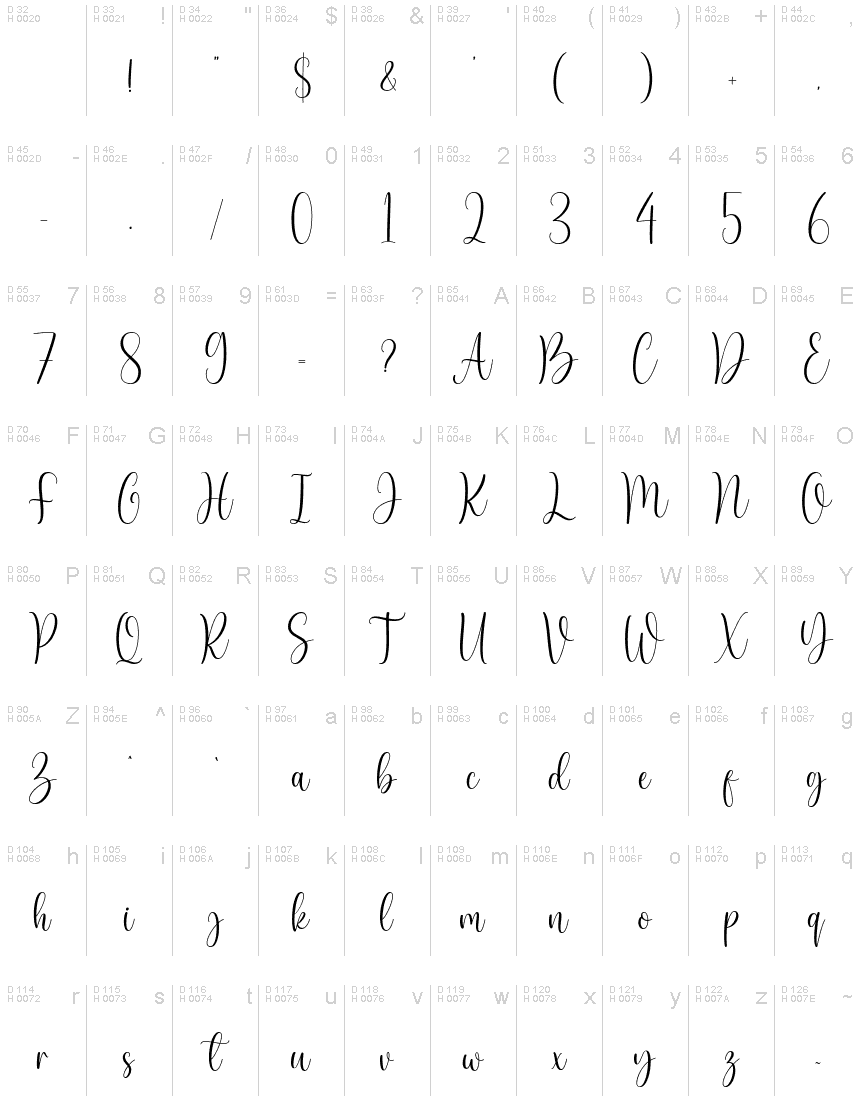
Honey Sweety
Honey Sweety, designed by AV Type, is the epitome of handwritten elegance with a calligraphic twist. Its semi-light weight lends an airy touch to its flowing letters, making it an impeccable choice for those seeking to infuse their creative endeavors with a personal and endearing charm. Whether you're crafting wedding invitations, designing heartfelt greeting cards, or branding boutique products, Honey Sweety's delightful nuances are sure to captivate and enchant your audience.
Its adorable quirks and sweet demeanor ensure that any project it graces will resonate with warmth and whimsy. Embrace the distinctive allure of this font and watch as it effortlessly elevates your designs to new heights of sophistication.